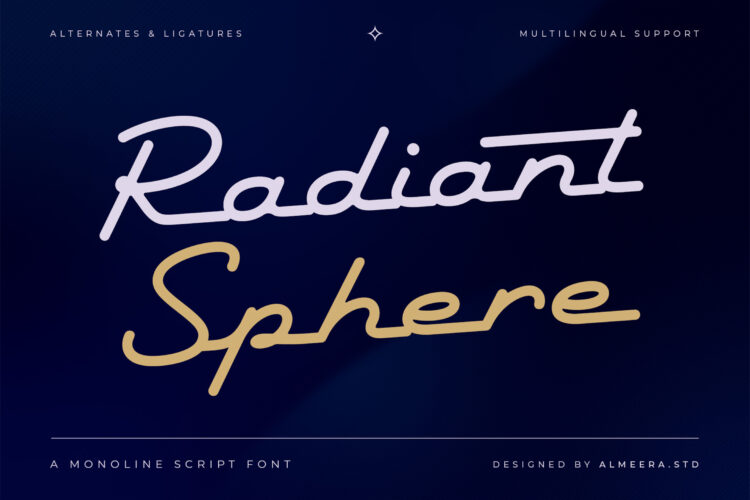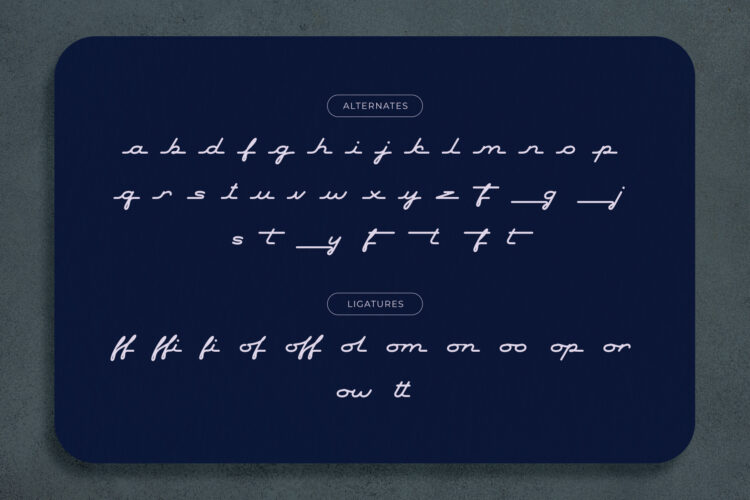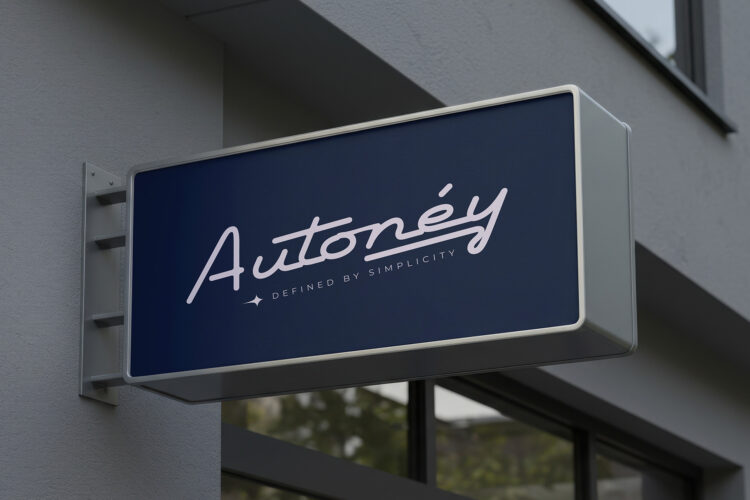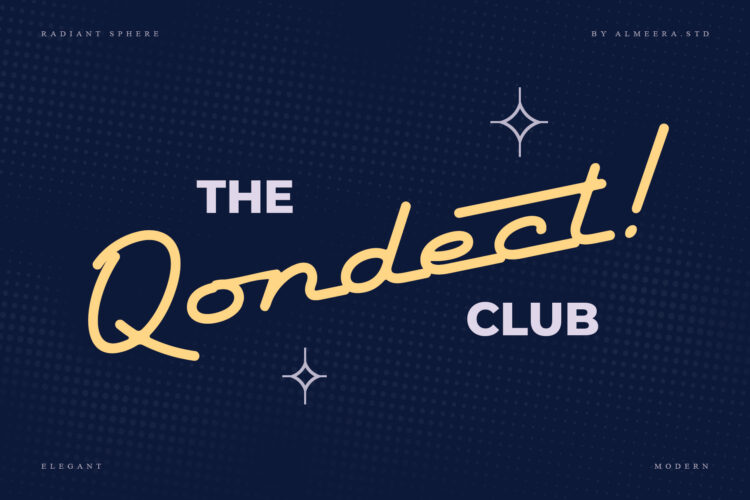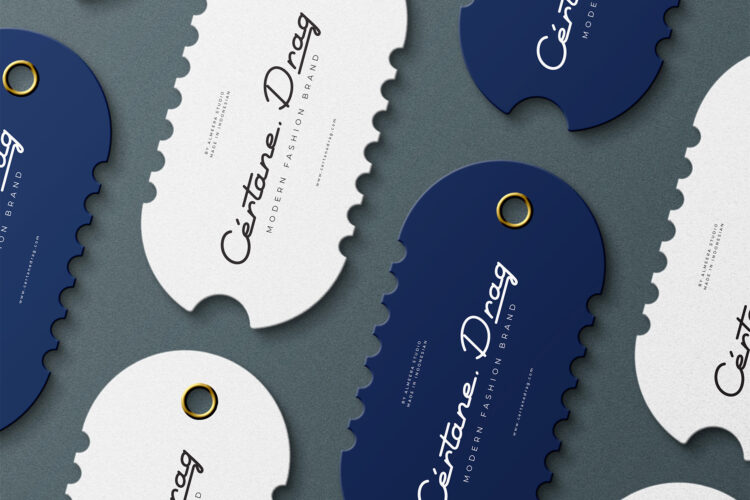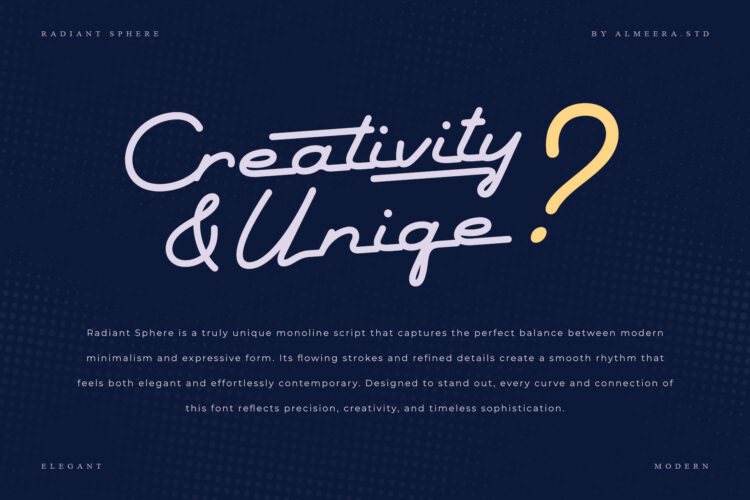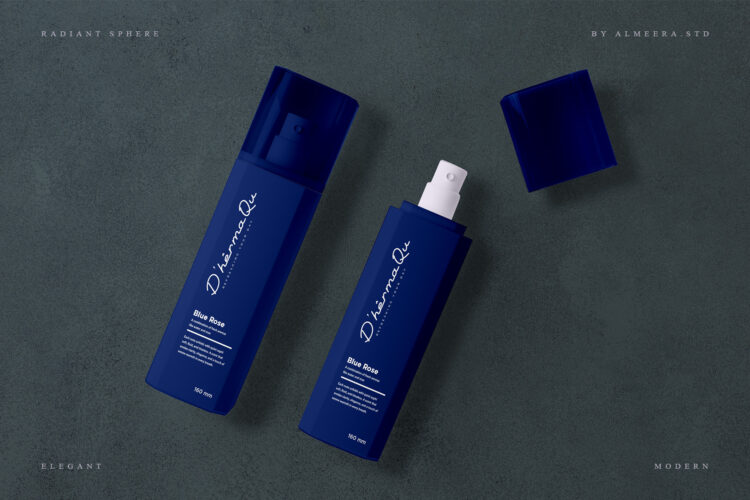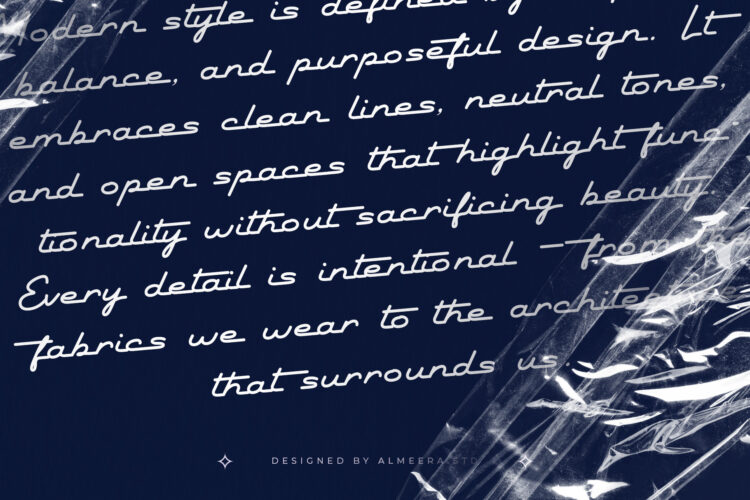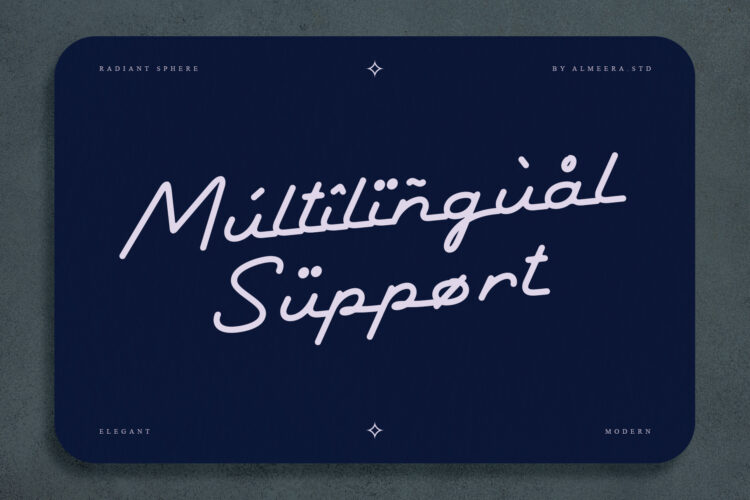
Radiant Sphere is a monoline script font inspired by retro signage and modern minimalism. With its clean, connected strokes and dynamic rhythm, this font brings a balance of vintage personality and contemporary style. Ideal for logos, headlines, posters, and branding, Radiant Sphere shines in both digital and print applications.
Equipped with alternates & ligatures and multilingual support, it’s designed to be versatile, legible, and effortlessly stylish — perfect for designers who want a sleek and radiant typographic identity.
– Numbers, fractions
– Punctuation and symbols
– Alternates
– Ligatures
– Multilingual support
Radiant Sphere — A Monoline Script Font